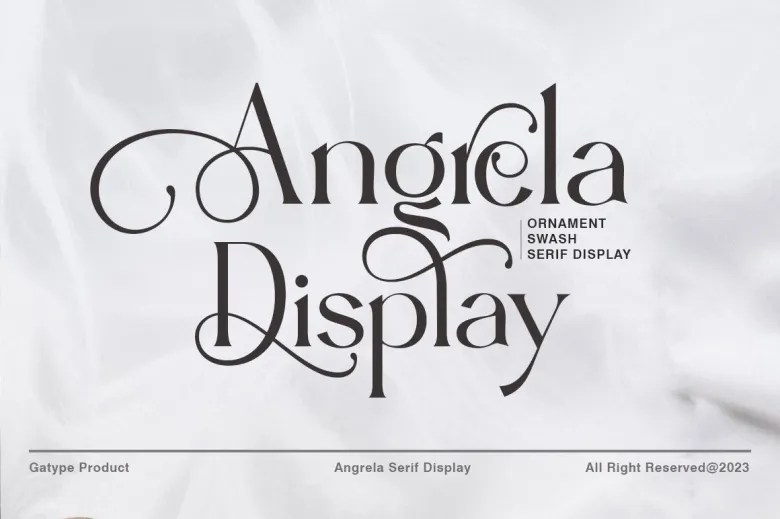
Angrela Display Font
Angrela Display is an ornamental serif typeface that exudes luxury, modernity, and sophistication. With its exquisite and unique design, Angrela Display is perfect for projects that demand an elegant and refined touch.
Key Features of Angrela Display:
• Ornamental Elegance: The intricate details and luxurious style of Angrela Display make it ideal for high-end design projects.
• Versatile Usage: This typeface is well-suited for a variety of applications, including brand and design projects, magazine layouts, social media branding, and website headers.
• Sophisticated Aesthetic: Angrela Display adds a unique and sophisticated finish to text overlays on photos, logos, brand names, and more.
Ideal Uses for Angrela Display:
• Elegant Branding: Perfect for creating logos, brand names, and other branding materials that require a touch of sophistication.
• Magazine & Social Media: Use Angrela Display for magazine headlines, social media posts, and website headers to make a lasting impression.
• Stylish Overlays: Add trendy and elegant text overlays on background photos to enhance visual interest and appeal.